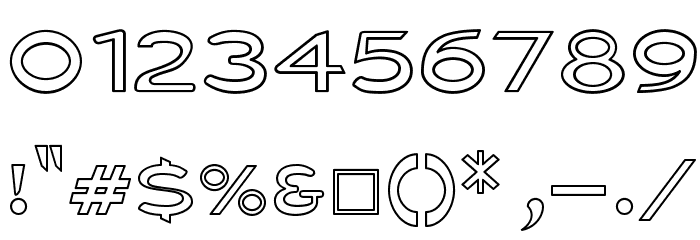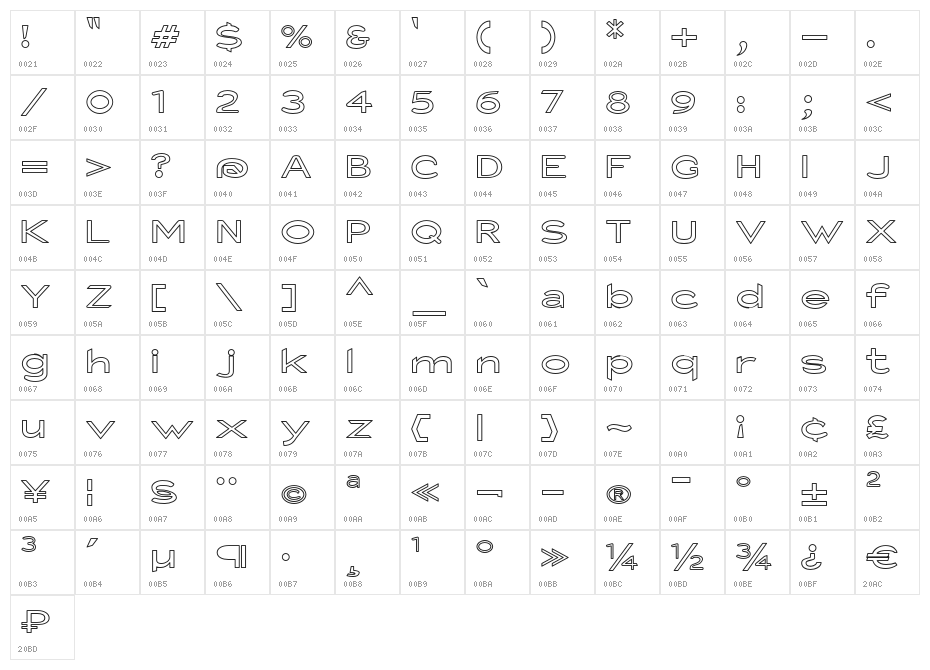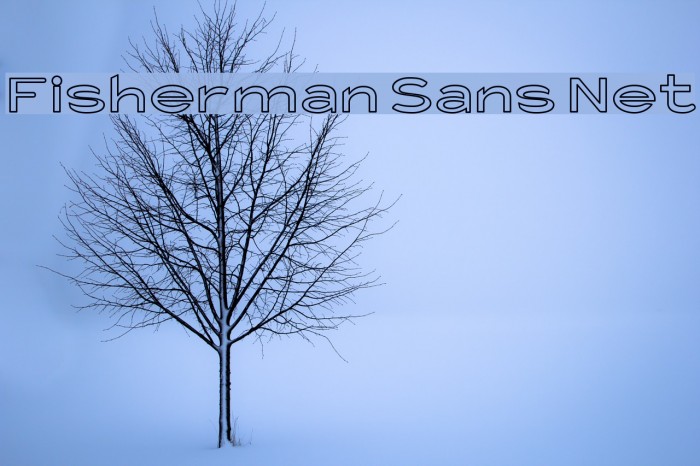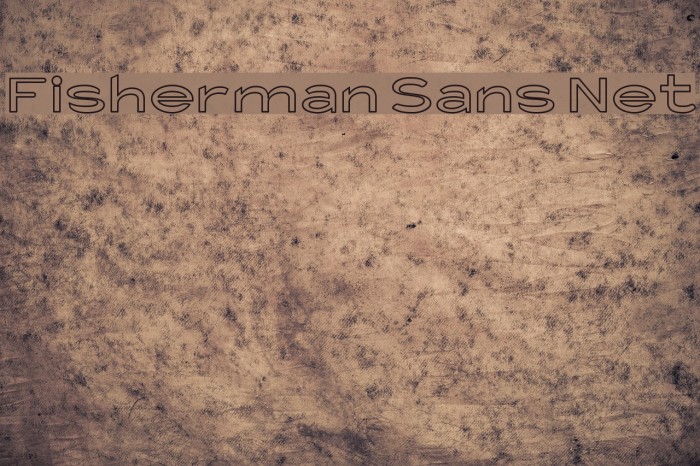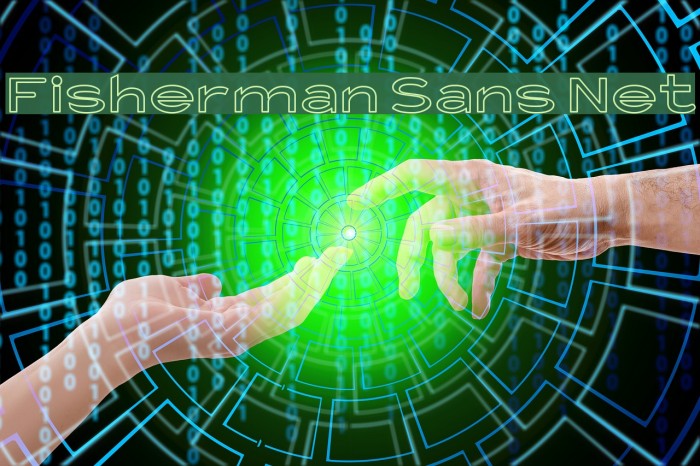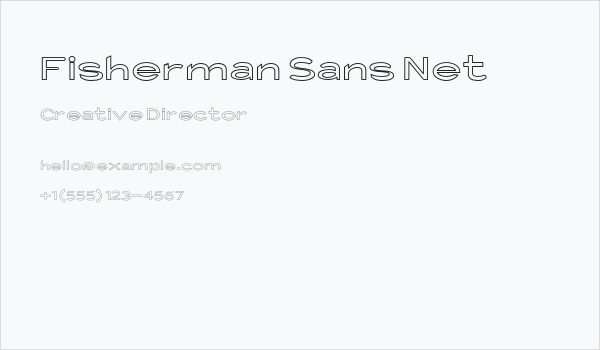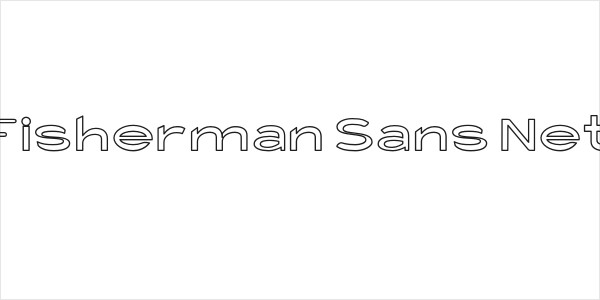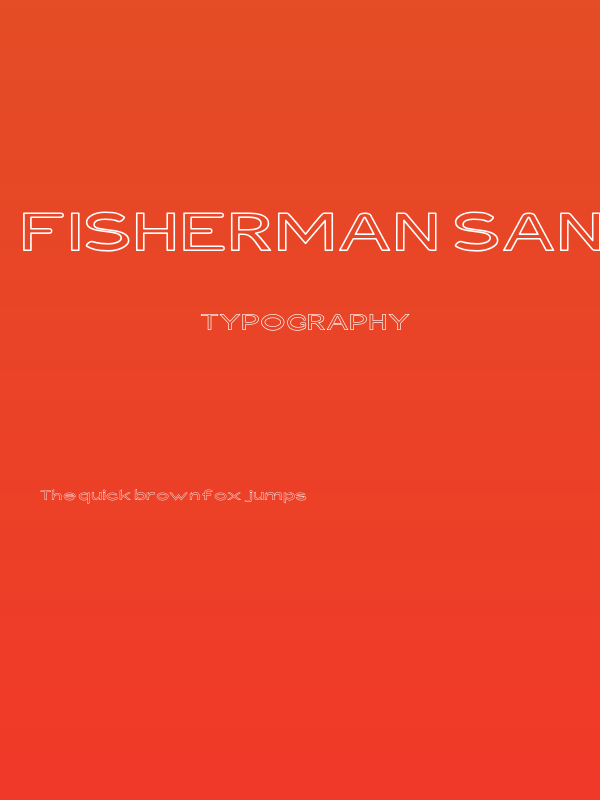
Fisherman Sans Net Font
Fisherman Sans Net Description
This font features a clean and modern sans-serif style with a distinctive outline design. Each character is crafted with uniform line thickness, creating a cohesive and balanced appearance. The uppercase and lowercase letters maintain a consistent geometric form, contributing to its contemporary aesthetic. The numerals and special characters are designed with the same attention to detail, ensuring readability and versatility. This font's open and airy structure makes it suitable for various design applications, offering a fresh and engaging visual appeal.
Proposed ProjectsIdeal for branding, posters, headlines, and digital media where a modern and clean look is desired.